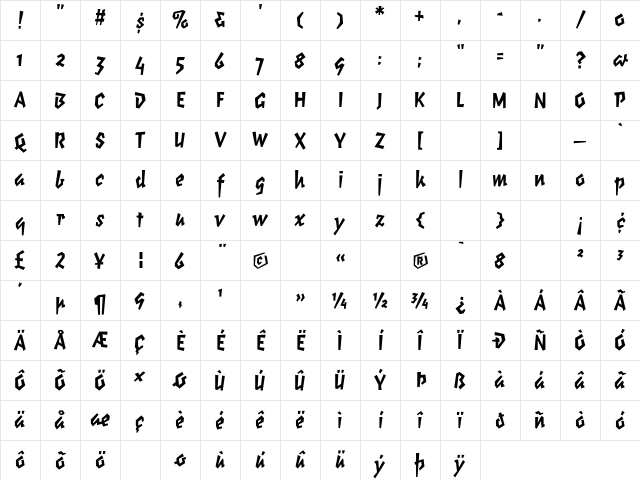
ElektrixBold Regular
Complete ElektrixBold Regular glyph index. Displaying only characters natively supported by ElektrixBold Regular font.
Design Context for ElektrixBold
ElektrixBold is a composed and adaptable typeface that performs quietly and consistently across a wide range of design contexts. Its bold stroke weight gives it real presence on the page.